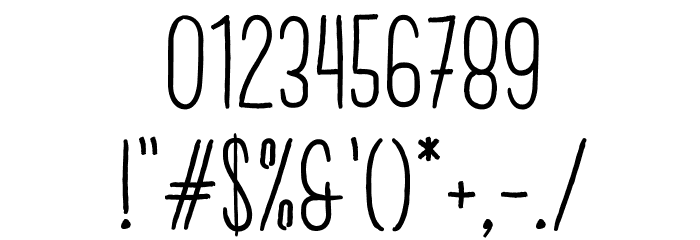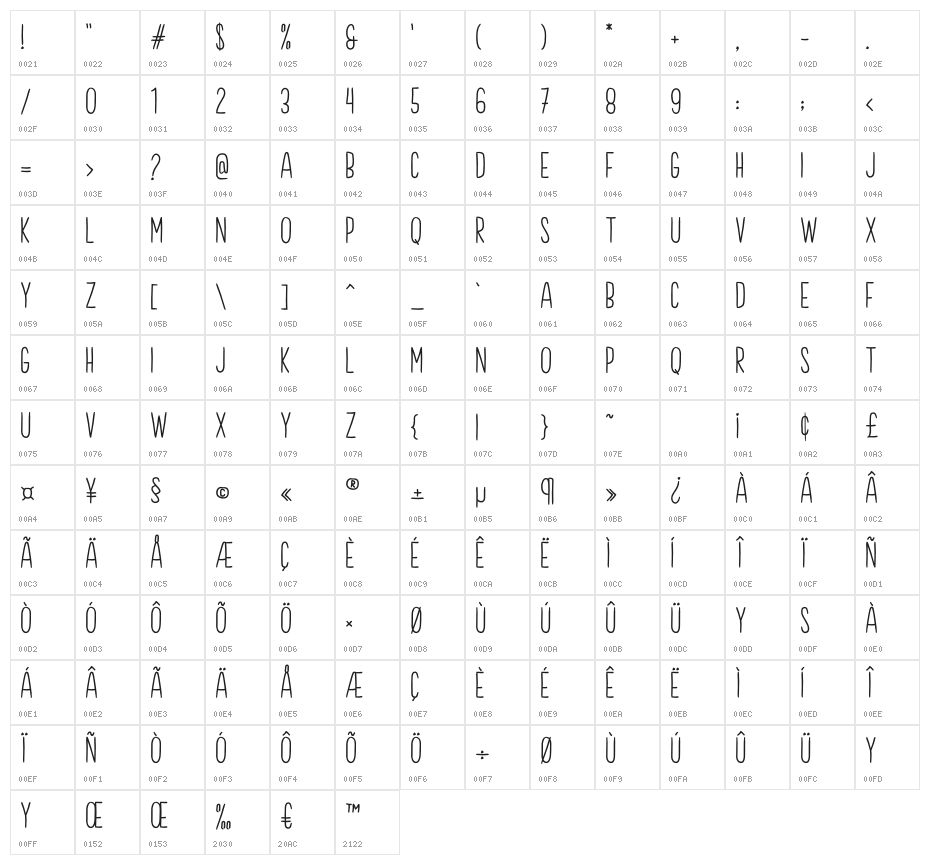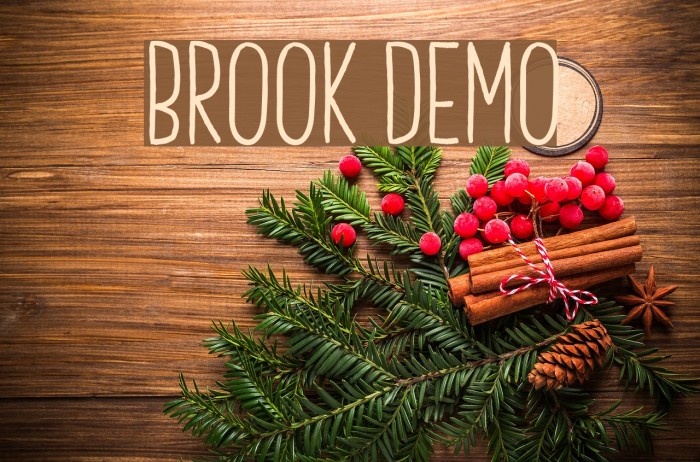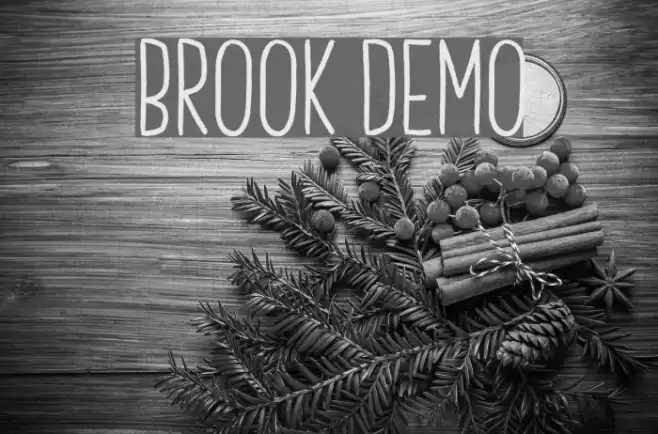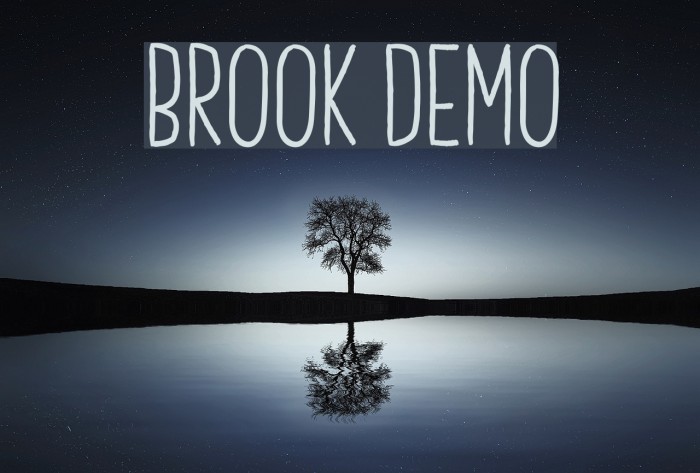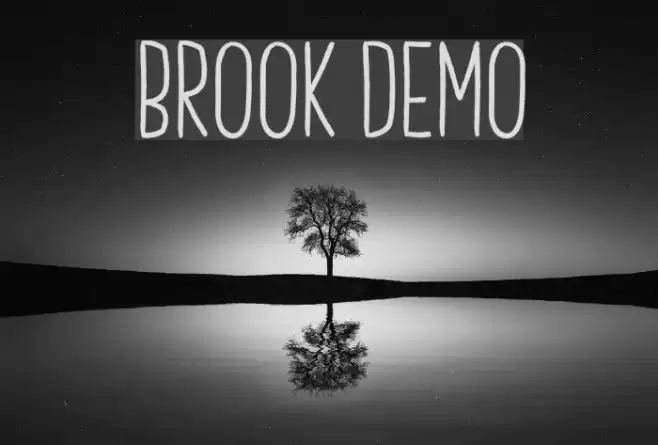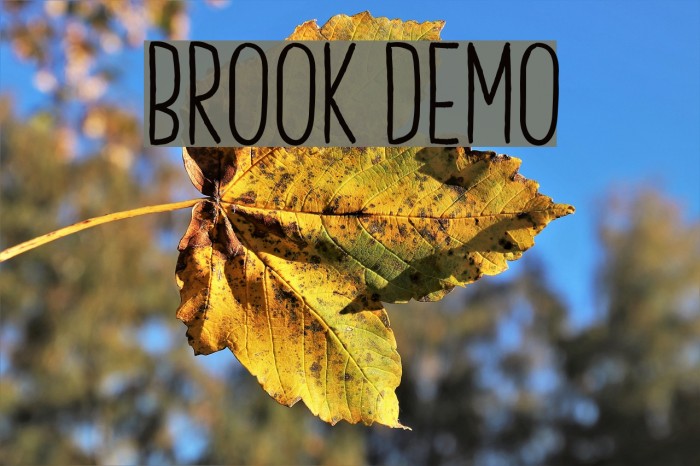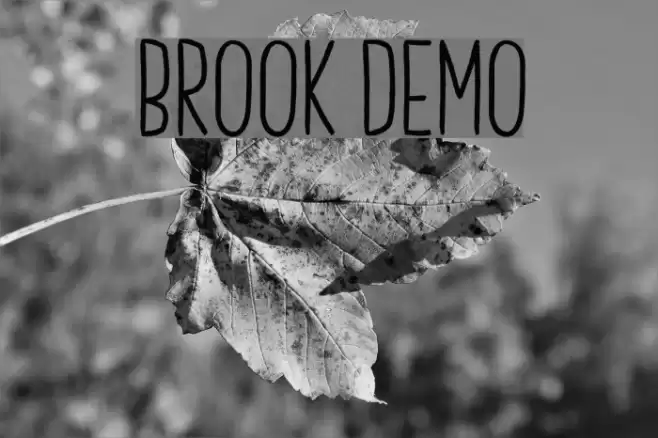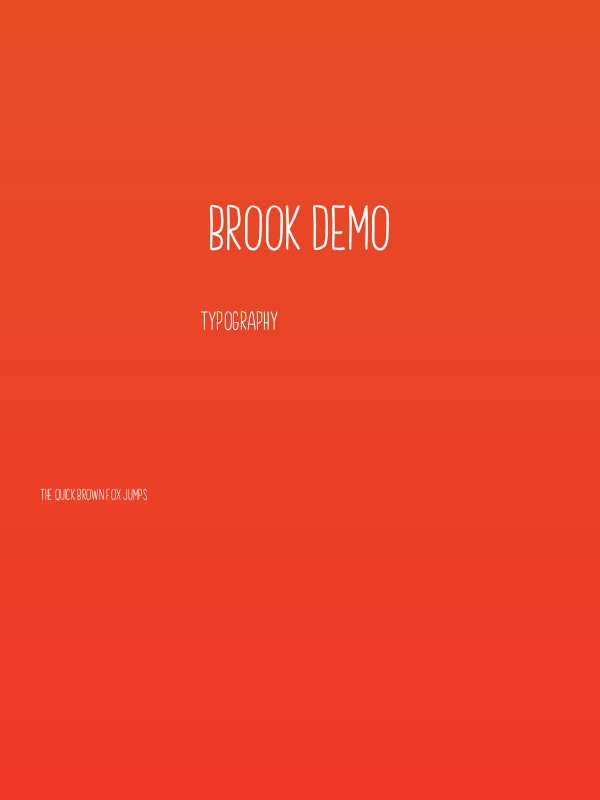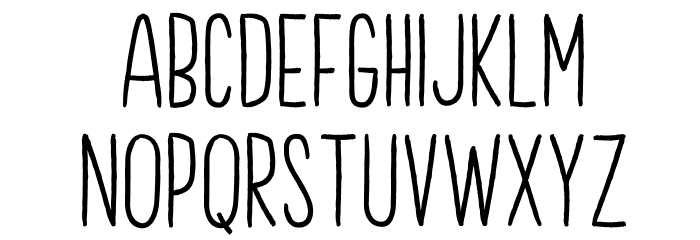
Brook Demo Font
Brook Demo Description
This font features a handwritten style with a casual and organic feel. The letters are slightly irregular, giving it a personal and approachable appearance. The strokes are consistent in thickness, providing a uniform look while maintaining a natural flow. The uppercase and lowercase letters are well-balanced, and the numerals are clear and legible. Special characters are included, enhancing its versatility for various uses. Its playful yet neat design makes it suitable for projects that require a touch of personality and warmth.
| Overall Style | Casual, Organic |
| Proposed Projects | Ideal for greeting cards, personal branding, social media graphics, and informal invitations. |